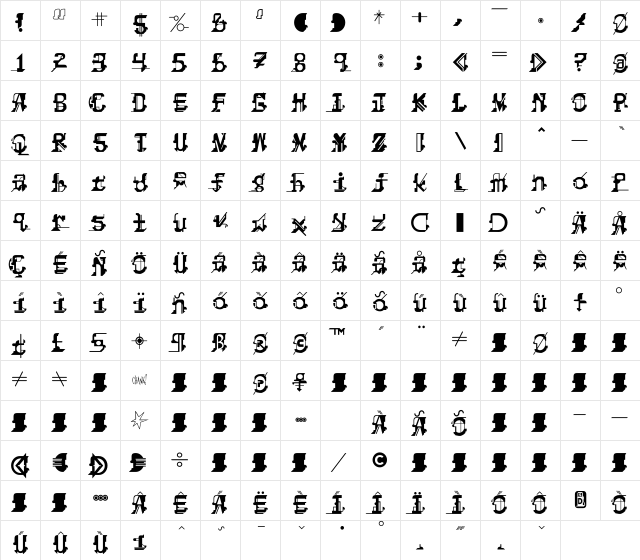
Complete Shakopee Medium glyph index. Displaying only characters natively supported by Shakopee Medium font.
Shakopee is a composed and adaptable typeface that performs quietly and consistently across a wide range of design contexts.